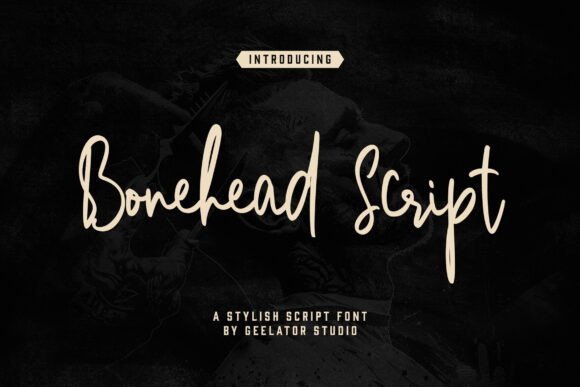
Adding a Touch of Elegance to Your Designs
Do you remember the moment when you fell in love with a particular font? Maybe it was a beautiful script that made your design stand out from the rest. For many designers, finding the perfect font can be a game-changer. It’s a chance to breathe life into a project and make it truly unique.
That’s where Bonehead Script Font comes in – a stylish and versatile script font that’s perfect for adding a personal touch to your design projects. Whether you’re creating invitations, greeting cards, logos, or branding materials, Bonehead Script Font is sure to make an impression. Its flowing and elegant style makes it a valuable asset for designers looking to elevate their work.
Bonehead Script Font Key Features
- Unique Characteristics: Distressed, handwritten, and vintage-inspired design; perfect for adding a touch of elegance and sophistication to designs
- Font Style: Script, handwritten, and cursive styles available; ideal for use in titles, headings, and body text
Bonehead Script Font Review
Overall, I was impressed with the Bonehead Script Font, but it has its quirks. Let’s dive into what works well and what doesn’t.
The Bonehead Script Font is perfect for adding a touch of whimsy to your designs. The letterforms are playful and elegant, making it suitable for a variety of projects, from invitations to branding materials. The font’s irregularities give it a unique, hand-written feel that’s sure to capture attention.
- Playful and elegant letterforms
- Suitable for invitations, branding, and other creative projects
- Unique, hand-written feel
One of the main limitations of the Bonehead Script Font is its lack of consistency. Some letters are more irregular than others, which can make it difficult to use for larger blocks of text. Additionally, the font may not be suitable for projects that require precise, uniform letter spacing.
- Lack of consistency in letterforms
- May not be suitable for large blocks of text
- May require manual adjustments for precise letter spacing
The Bonehead Script Font is a fun and creative addition to any designer’s toolkit. While it may have its limitations, it’s perfect for projects that require a touch of personality and whimsy. With a little patience and manual adjustments, you can create beautiful designs that showcase this unique font’s strengths.
Tips for Getting the Most Out of Bonehead Script Font
Use Bonehead Script Font for titles, headings, and short paragraphs to create a unique and eye-catching design.
Combine it with other fonts to create a visually appealing contrast.
Experiment with different font sizes and colors to find the perfect balance.
Bonehead Script Font is perfect for:
Branding and logos.
Quotes and motivational posters.
Any design where a unique and elegant script font is needed.
Alternatives to Bonehead Script Font
Playfair Display is a luxurious, high-end script font ideal for use in magazine titles, luxury brands, and high-end packaging. It features elegant connections and refined lines, making it perfect for sophisticated designs. Unlike Bonehead Script Font, which is more playful and casual, Playfair Display is more formal and sophisticated.
Lobster is a bold, cursive script font that’s great for headings and titles. It’s often used in modern and trendy designs, and its bold lines make it perfect for grabbing attention. While Bonehead Script Font is more casual and fun, Lobster is more dramatic and attention-grabbing.
Great Vibes is a modern, elegant script font that’s perfect for use in branding, packaging, and advertising. It features smooth connections and refined lines, making it ideal for designs that require a touch of sophistication. Unlike Bonehead Script Font, which is more playful and fun, Great Vibes is more refined and elegant.
Carolyna Pro is a elegant, high-end script font that’s perfect for use in luxury branding, packaging, and advertising. It features refined lines and elegant connections, making it ideal for sophisticated designs. While Bonehead Script Font is more casual and fun, Carolyna Pro is more formal and luxurious.